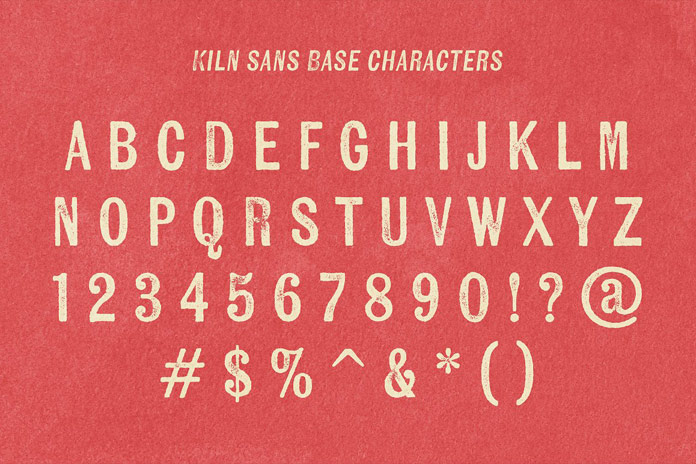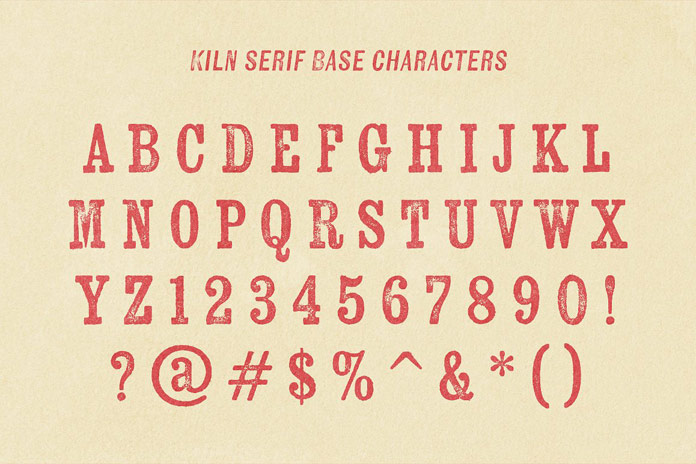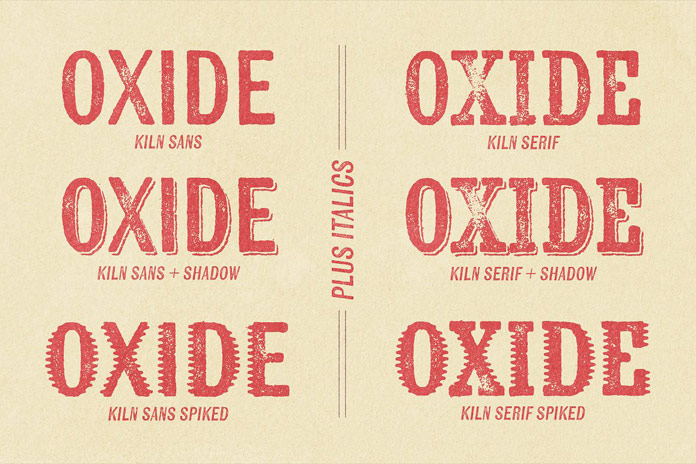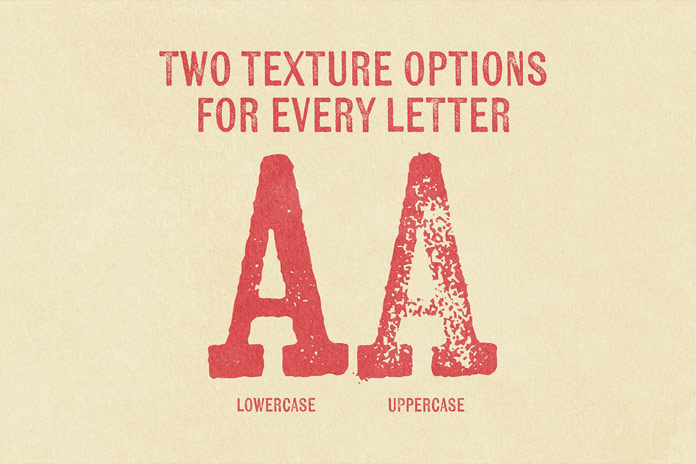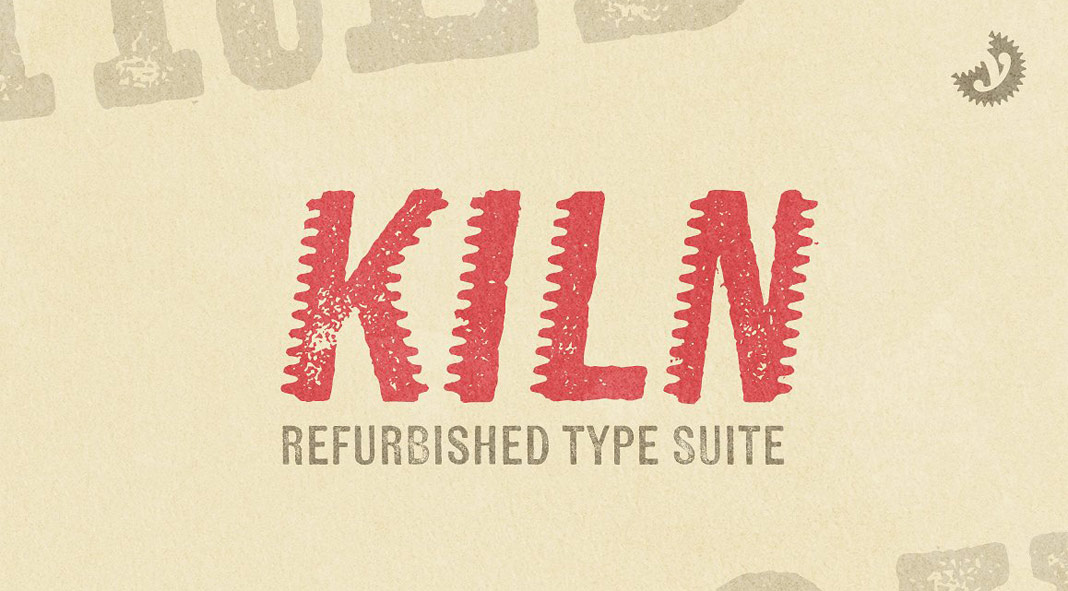
Kiln, a hand-crafted, vintage-inspired font family by Yellow Design Studio.
Today I want to present you another vintage-inspired type family. Designed and published by Yellow Design Studio, Kiln comprises a sans and serif font, each comes with a matching shadow and spiked version. Due to its textured, hand-crafted look and feel, the family conveys a nice screen printed style. All characters are equipped with two distressed options to give your typographic work a more authentic touch. In addition, you can use shadow layers, automatic double-letter ligatures, and Italics for perfect customization. The detailed textures look great in any size. For further information, just have a look at the images below or click on the following link.